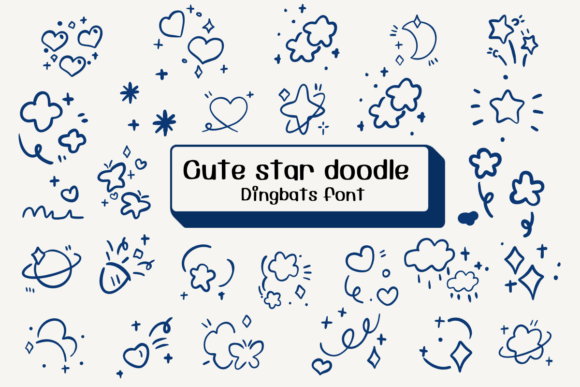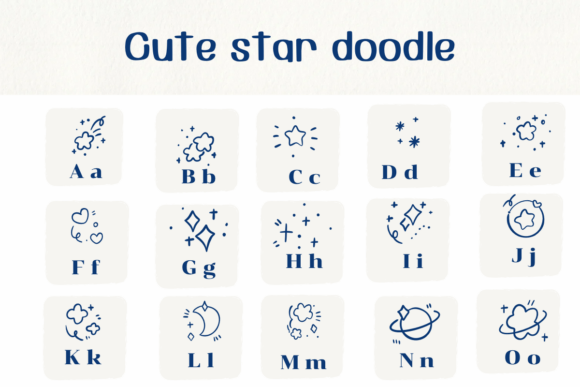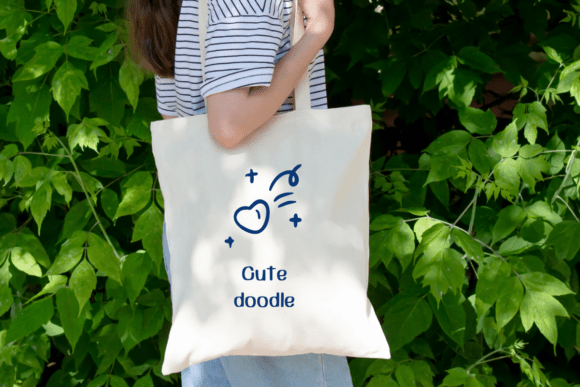
Cute Star Doodle Font
Cute Star Doodle is a dingbfats font with a celestial theme. This font can enhance your creative projects such as wedding invitations, DIY, crafts, decorations, logos, and many other creative ideas.